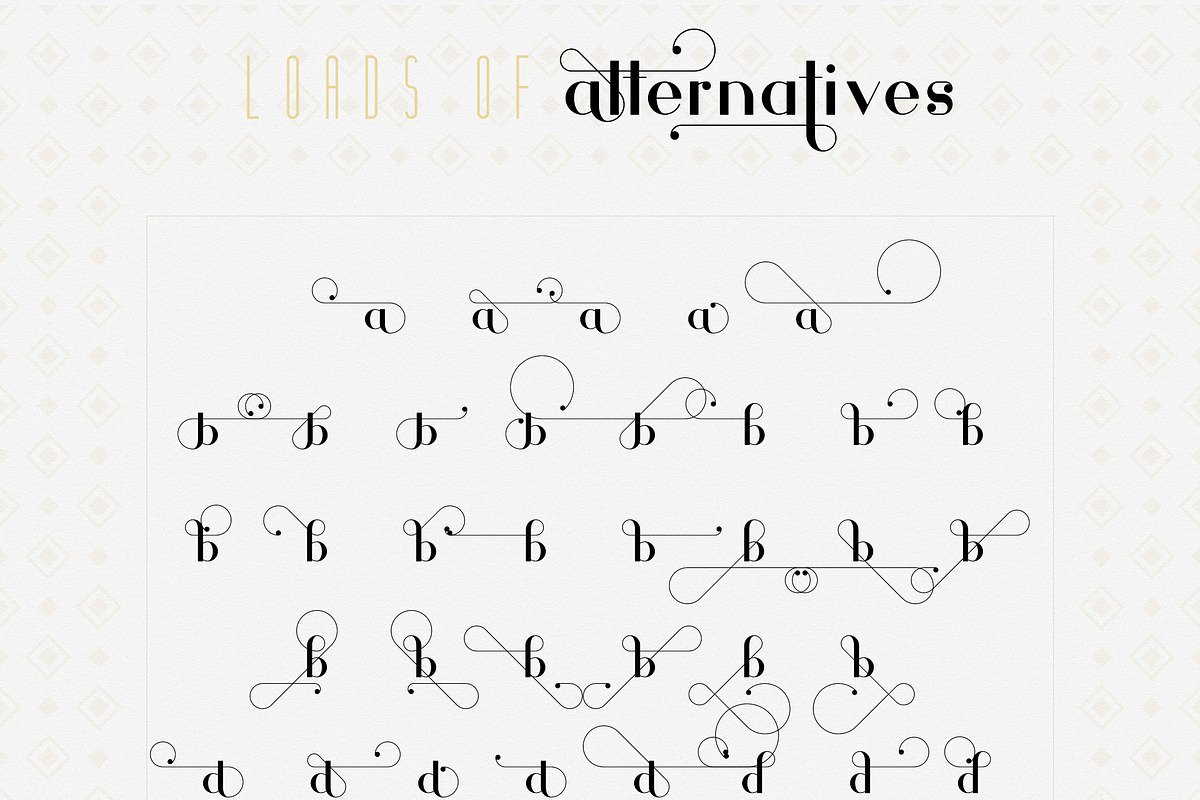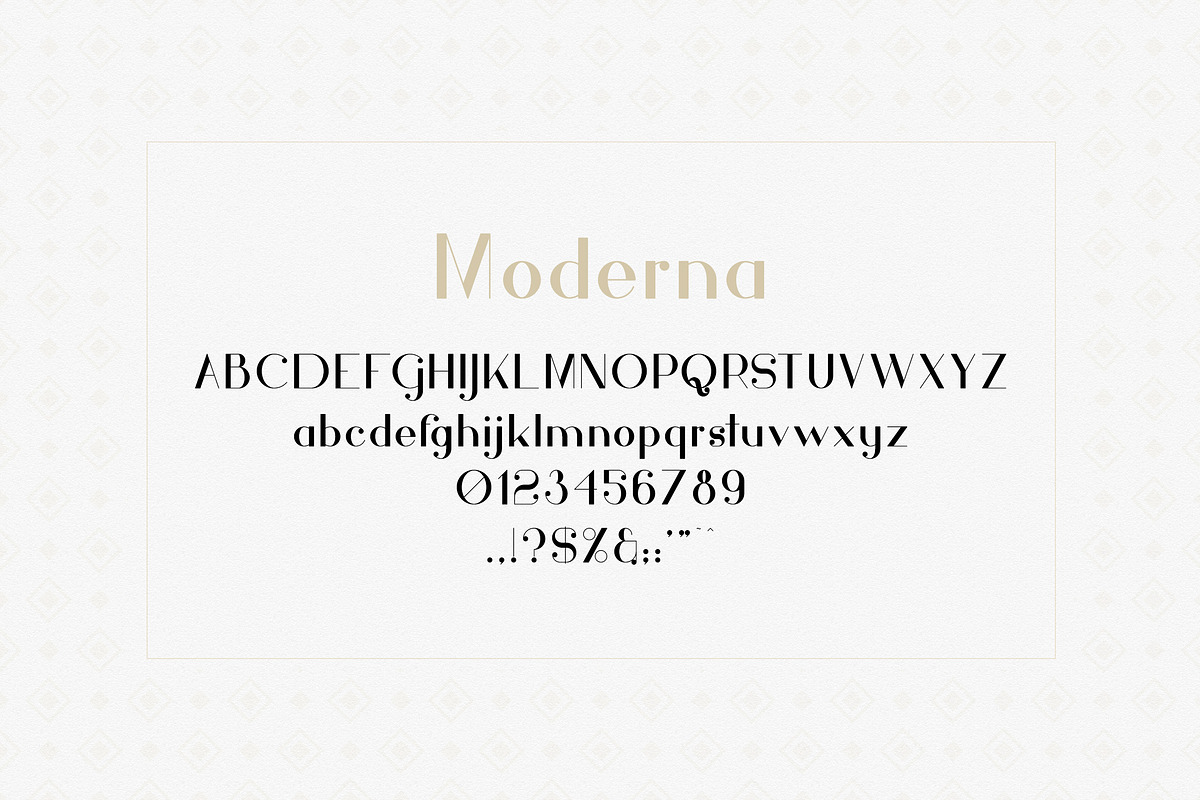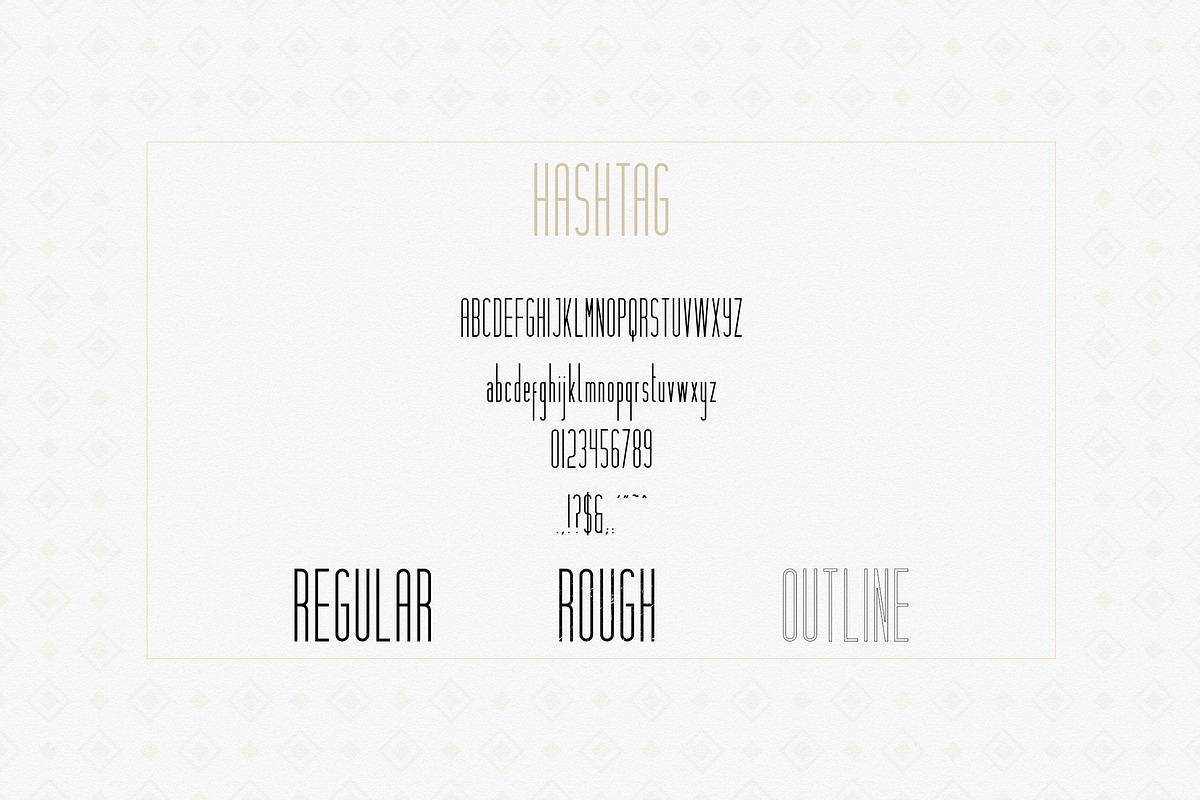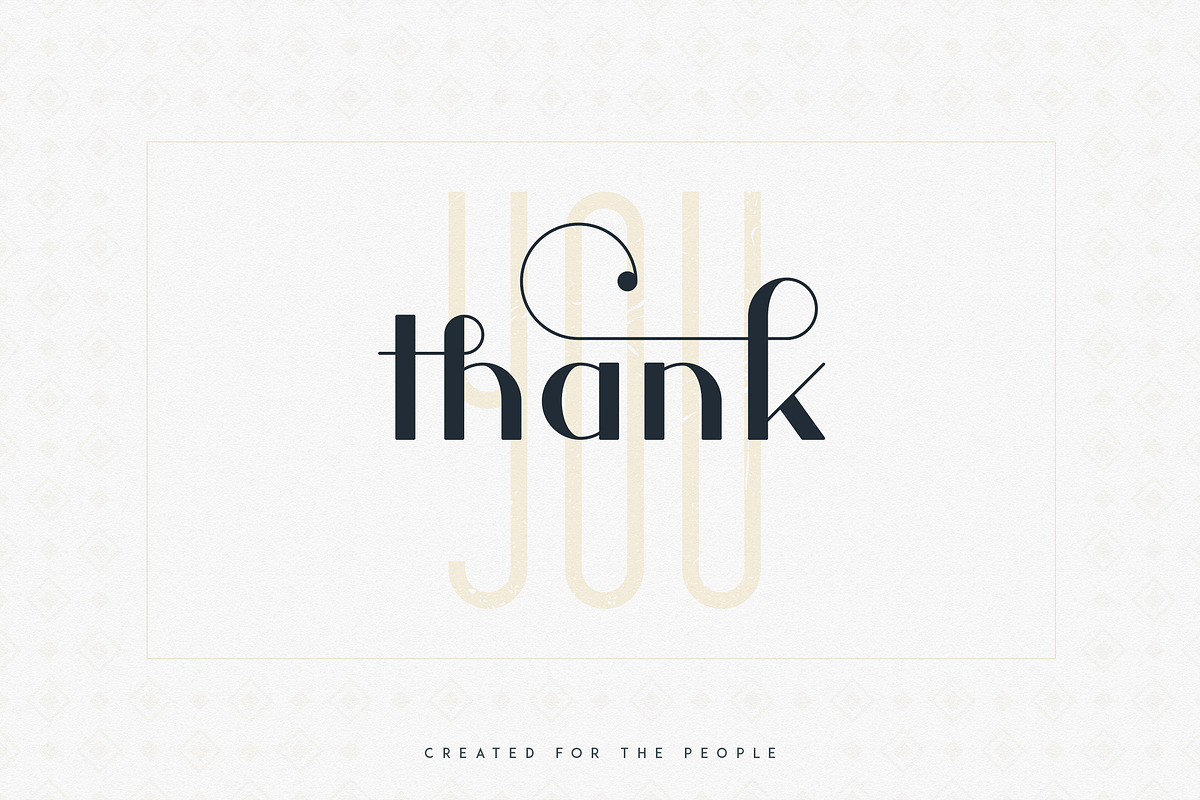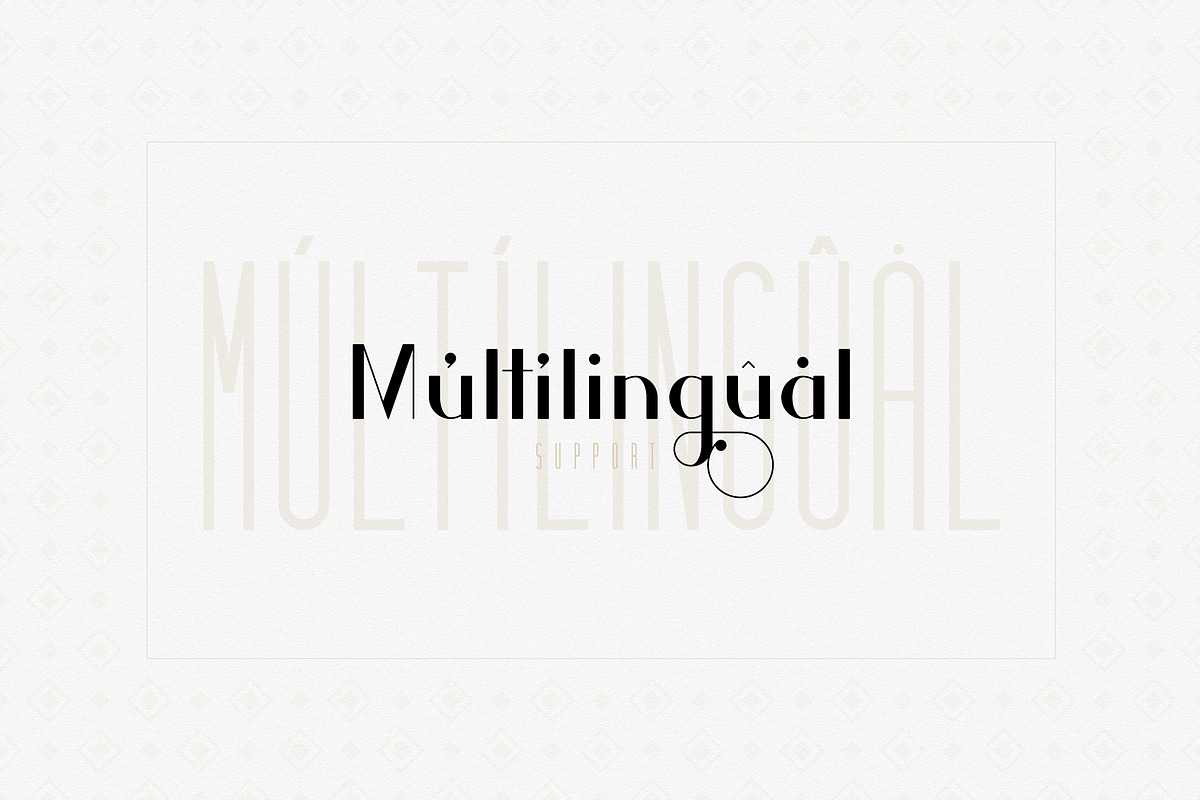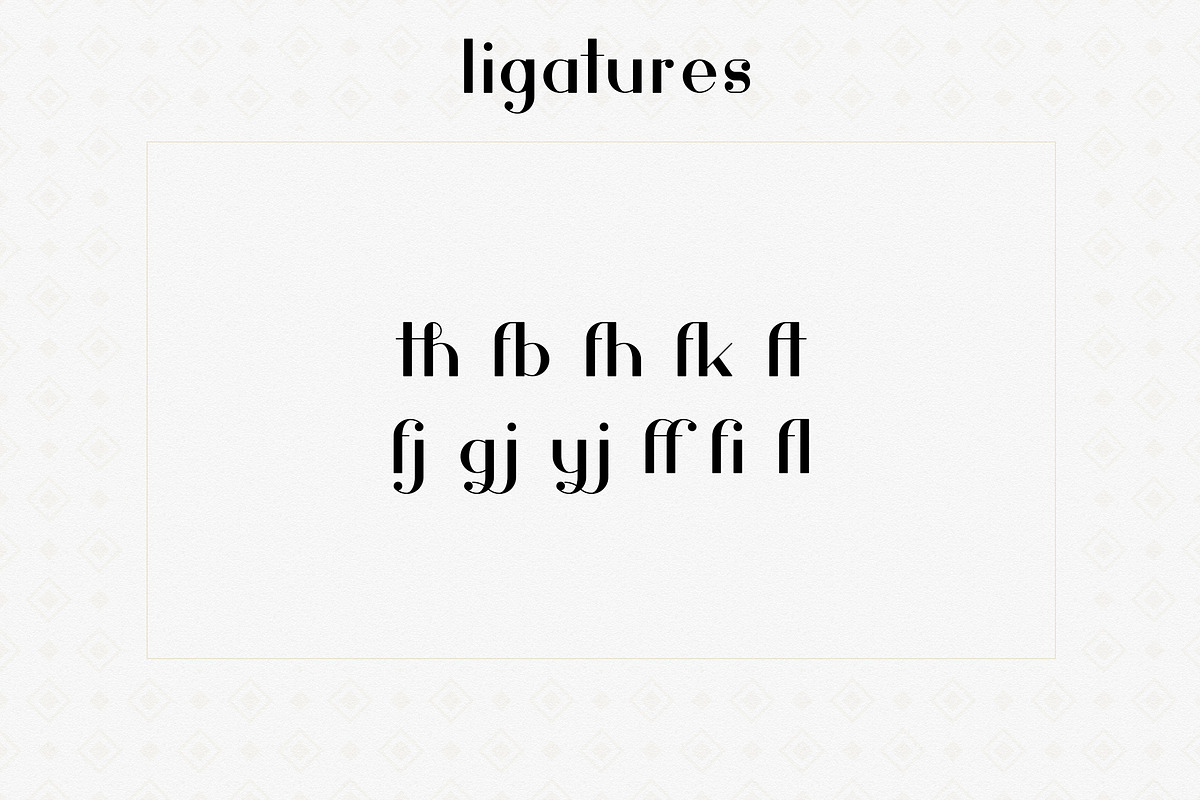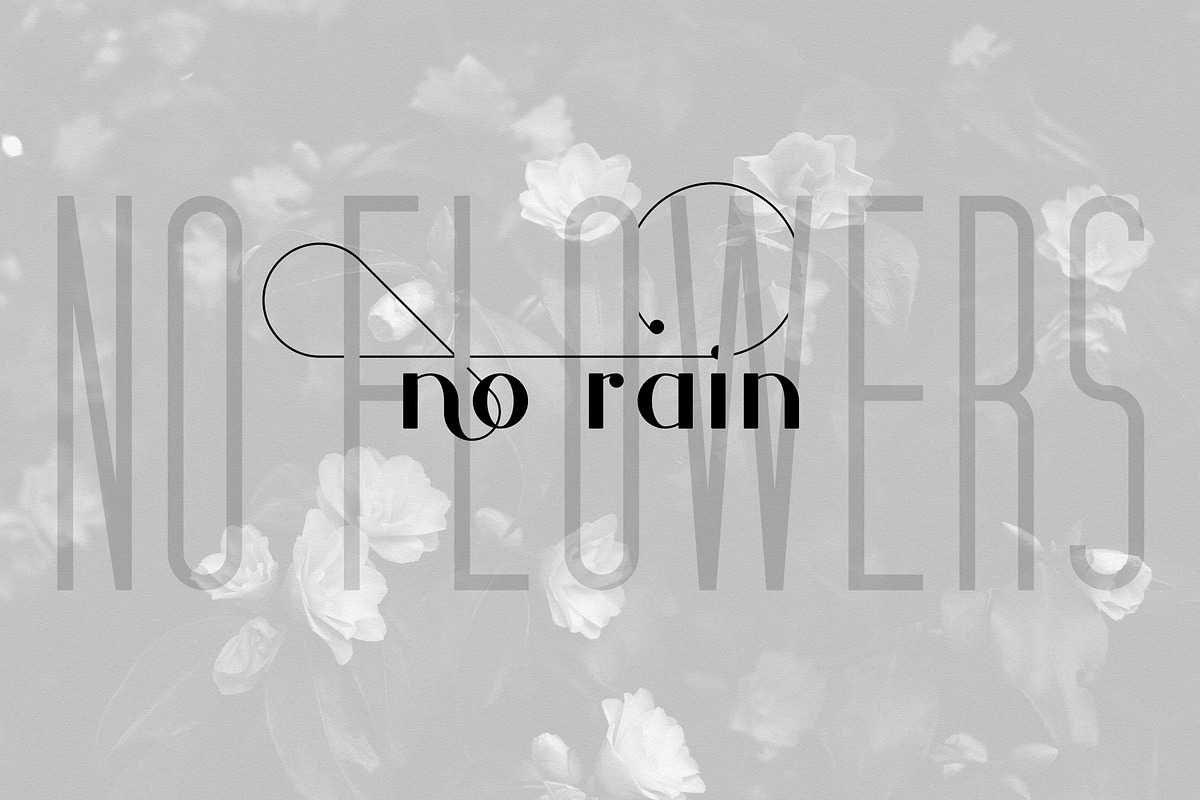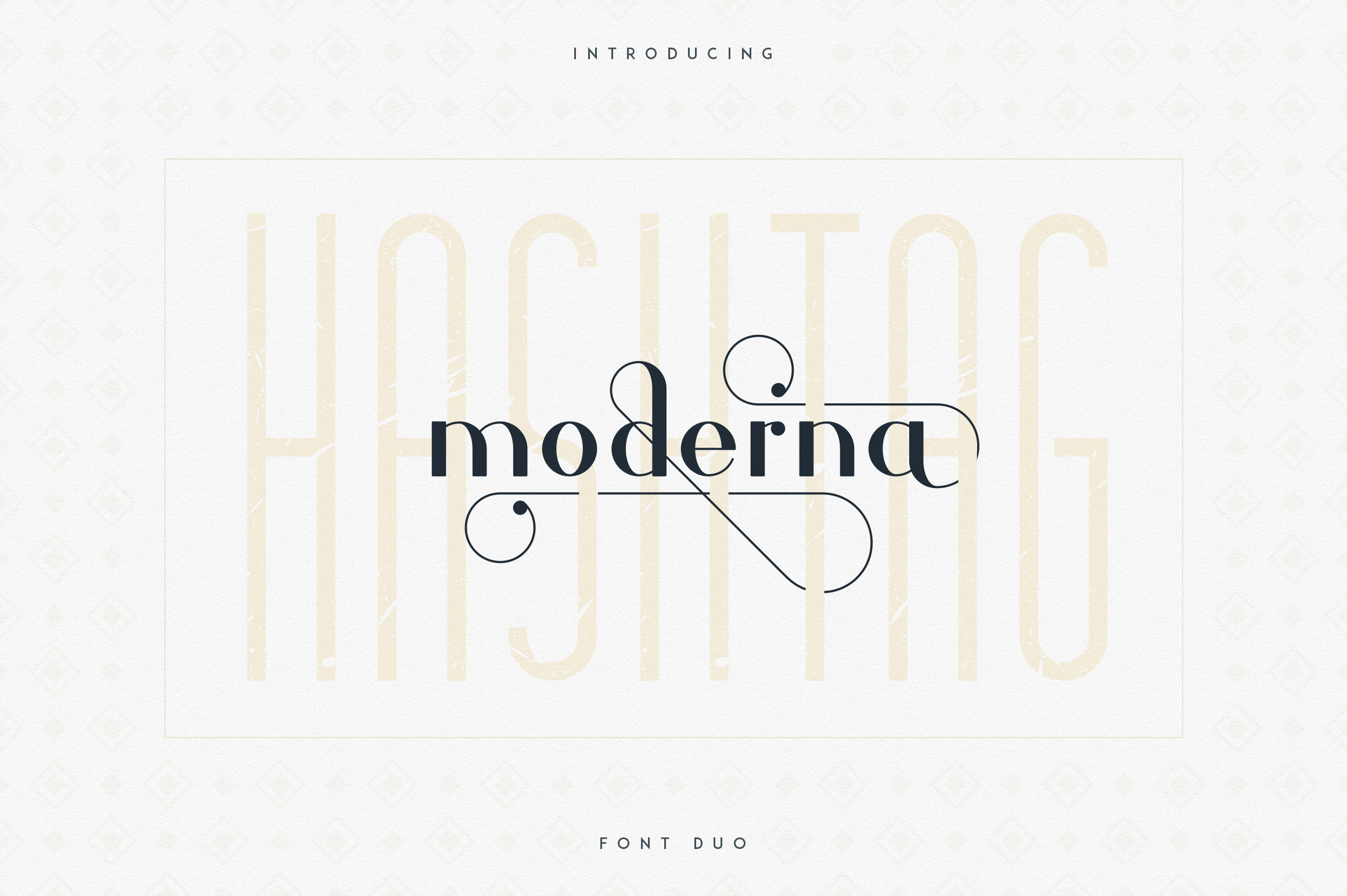
Hashtag Moderna - duo font + Extra
INTRODUCING Font duo Hashtag Moderna + 15 Patterns
Hashtag Moderna is elegant, clean font duo with total of 4 font styles, loads of alternatives, ligatures, patterns and multilingual support. It's a very versatile font that works great in large and small sizes.
Hashtag Moderna is perfect for branding projects, home-ware designs, product packaging, magazine headers - or simply as a stylish text overlay to any background image.
Moderna serif font
- Stylistic alternatives
- ligatures - th, fb, fh, fk, ft, fj, gj, yj, ff, fi, fl
Hashtag display font family
- Rough
- Outline
Addition elements
- 15 seamless patterns